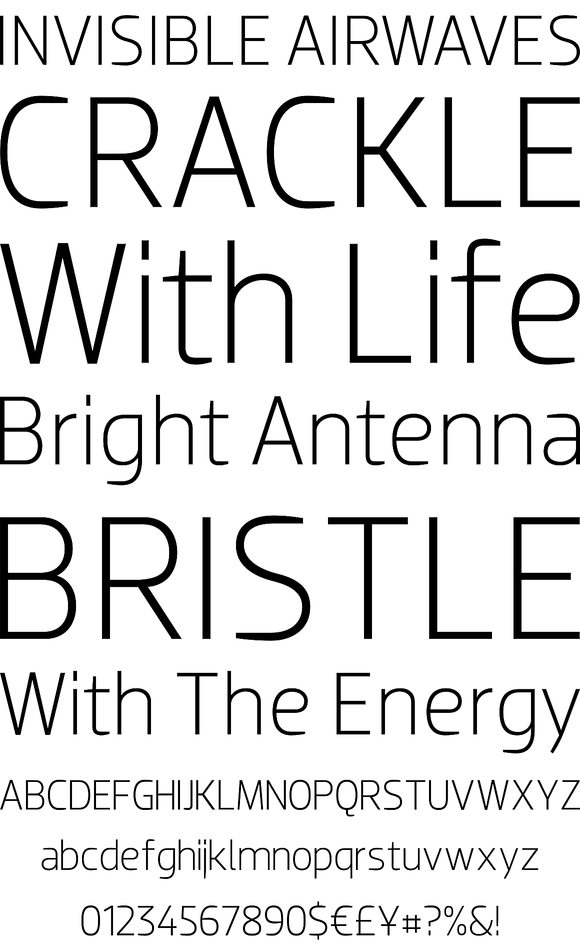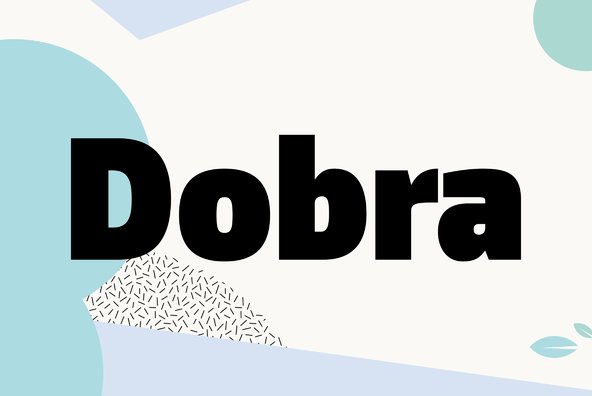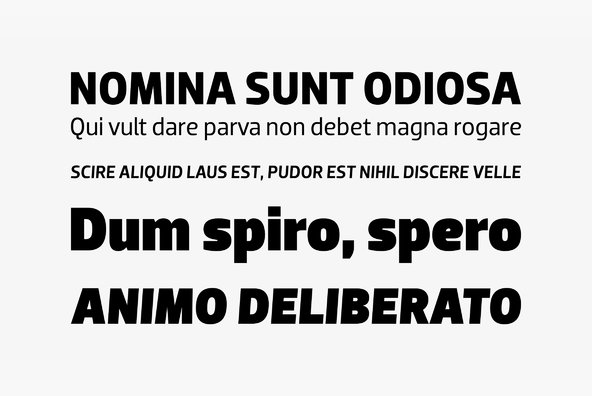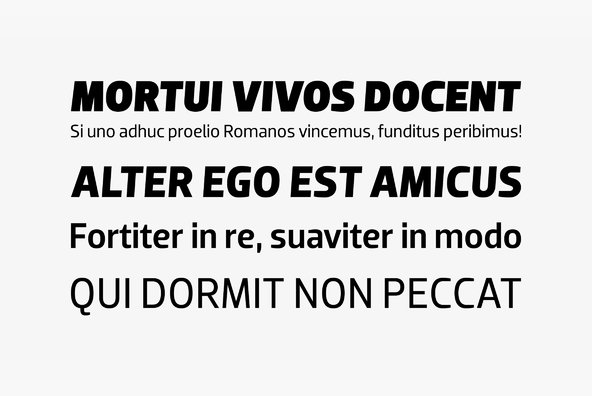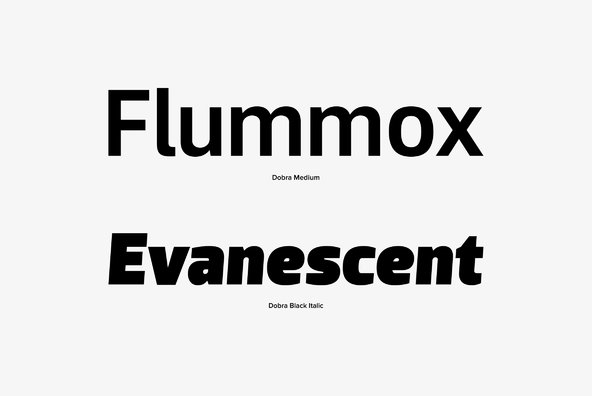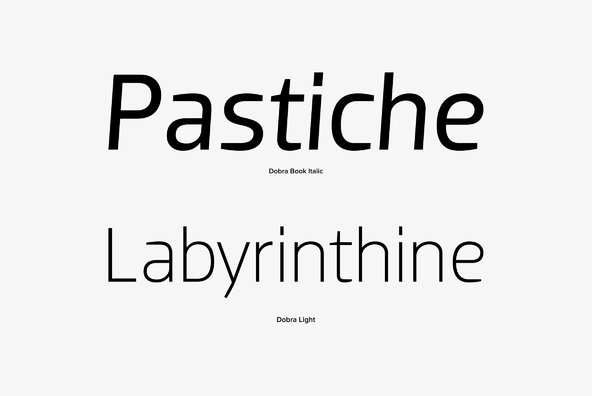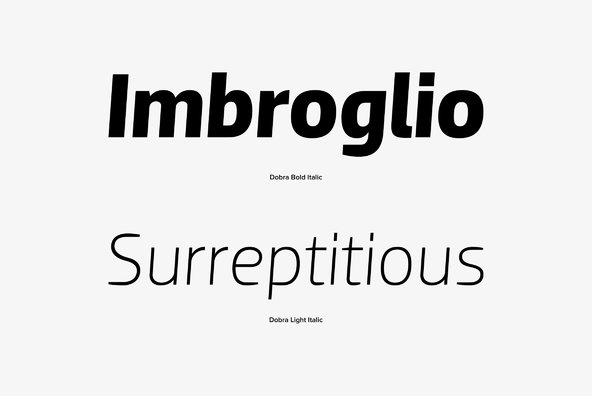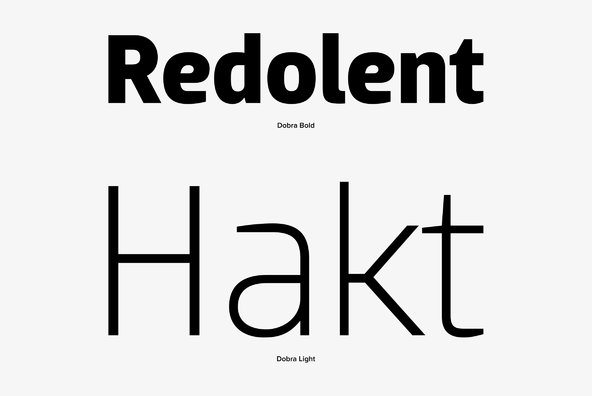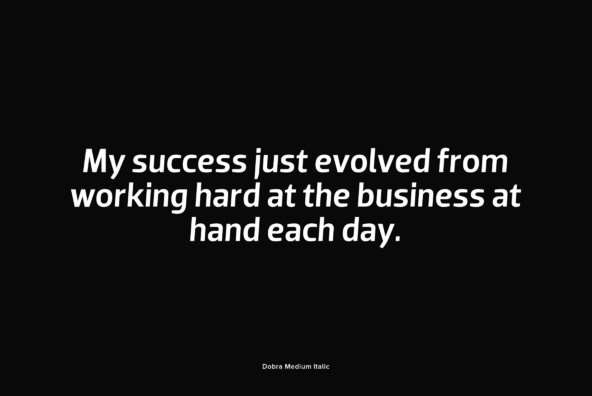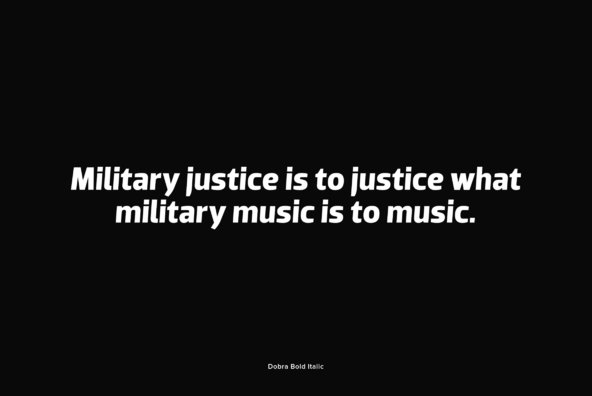
Dobra is a redesign of the previous released Dione. Dobra is a very geometric and robust sans typeface, specially suited for magazines and newspapers, but it works great as a corporate typeface.